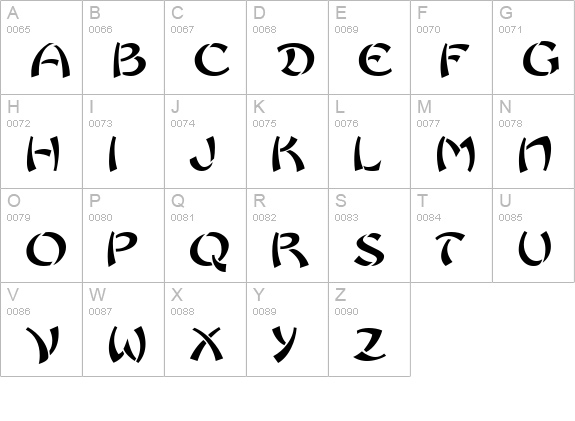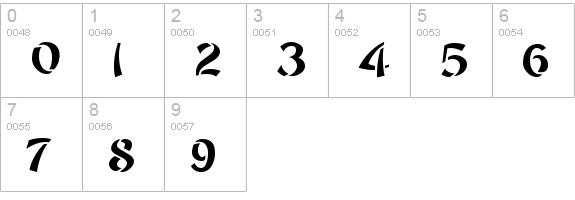
Chow Fun Font Details
Chow Fun font is a playful and lively typeface that exudes a sense of fun and creativity. With its unique and eye-catching design, Chow Fun is sure to make your projects stand out. This free font is perfect for adding a touch of personality to your designs, whether you're working on posters, logos, or social media graphics. Chow Fun is freely available to download at FontsMarket.com, where you can easily access this delightful font and bring your creative vision to life. Embrace the whimsical charm of Chow Fun and let your imagination run wild with this versatile and engaging typeface.